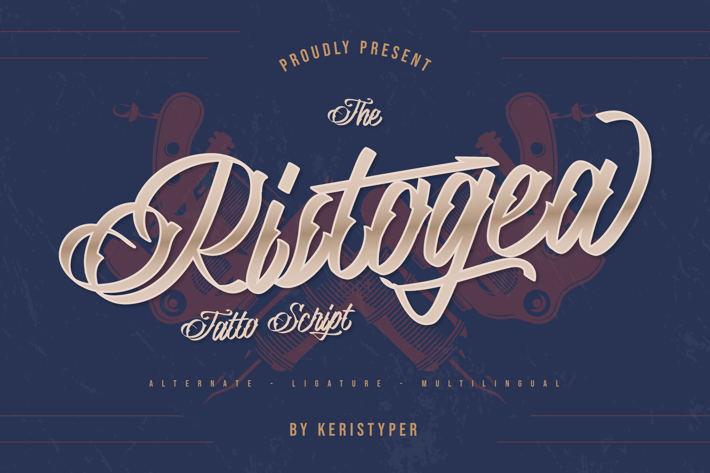
Ristogea Font
Proudly present Ristogea, a script font inspired by tattoo lettering with swirl curvy. This font is good for logo design, Social media, Movie Titles, Books Titles, short text even long text letters, and good for your secondary text font with the script, sans, or serif.
Standard Uppercase & Lowercase
Multilingual : ä ö ü Ä Ö Ü ß ¿ ¡
Alternate & Ligature